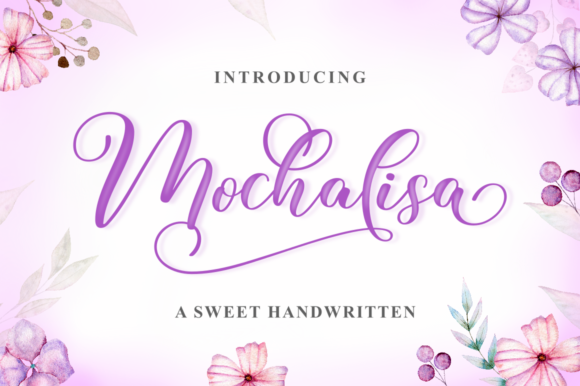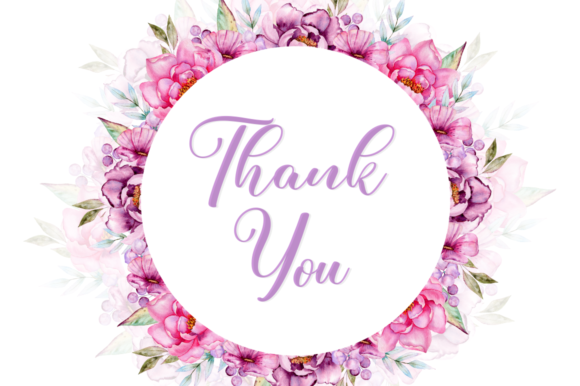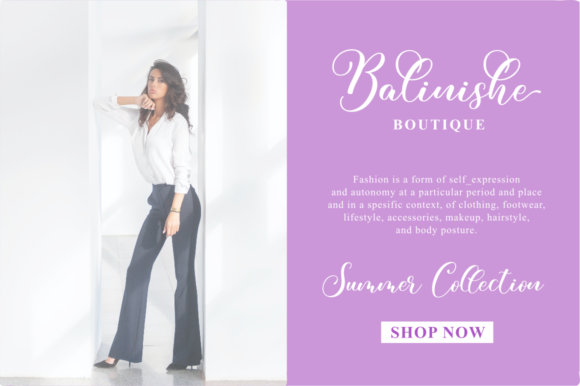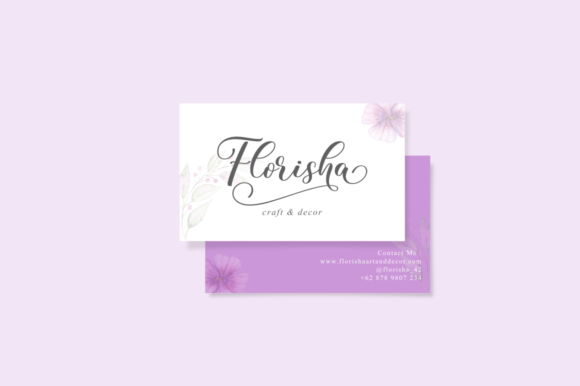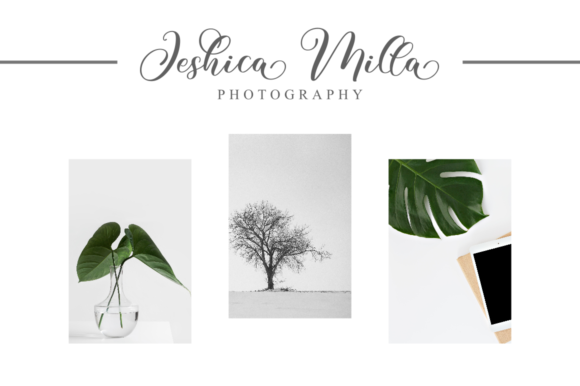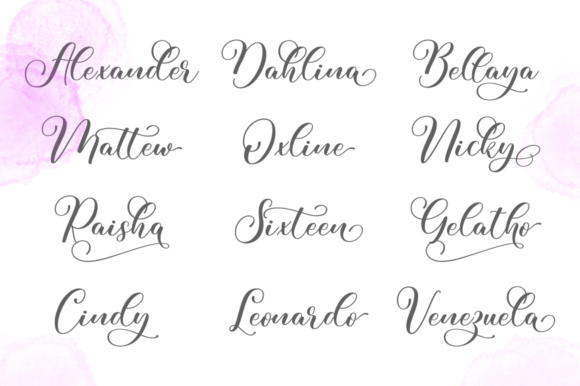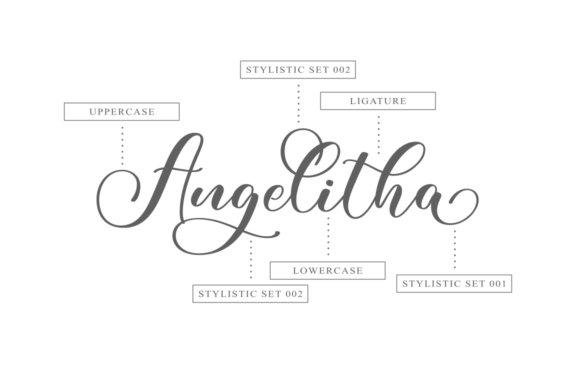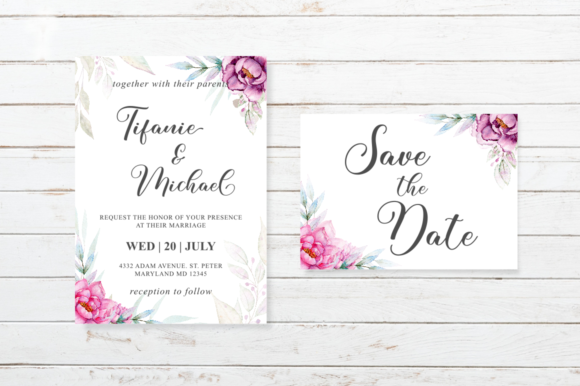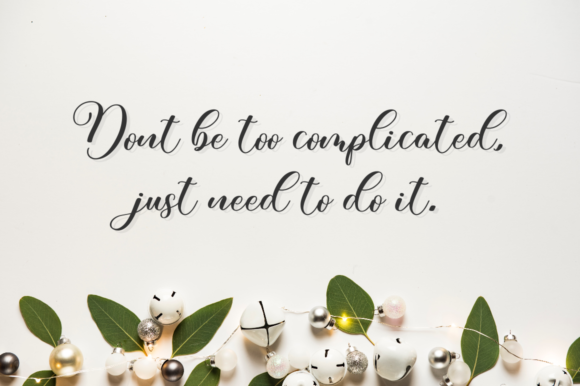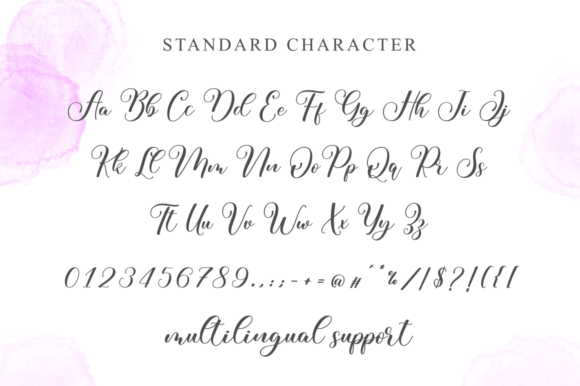
Mochalisa Font
About Mochalisa Font
Mochalisa is a stunning light handwritten font that brings a unique and luxurious feel to your design projects. With its delicate and elegant style, this font adds a touch of sophistication and beauty to any text.
The unique feel of Mochalisa sets it apart from other fonts, making it a great choice for designs that require a special and memorable touch. Whether you’re working on wedding invitations, branding materials, packaging, or social media graphics, Mochalisa elevates your designs with its stunning impact.
One of the standout features of Mochalisa is its extensive set of glyphs and ligatures. The font is PUA encoded, which means you can easily access and utilize all of the amazing glyphs and ligatures that come with it. This gives you endless possibilities to customize and embellish your typography, creating truly unique and eye-catching designs.
Mochalisa is versatile and adaptable to a wide range of design projects. Its light and delicate style make it suitable for various applications, including logos, headlines, quotes, stationery, and more. It adds a touch of elegance and luxury to your designs, creating a visually pleasing and sophisticated look.
In summary, Mochalisa is a beautiful light handwritten font that exudes uniqueness and luxury. With its stunning impact and extensive set of glyphs and ligatures, it offers endless creative possibilities for your design projects. Whether you’re creating wedding invitations, branding materials, or social media graphics, Mochalisa adds a touch of sophistication and beauty that will captivate your audience.